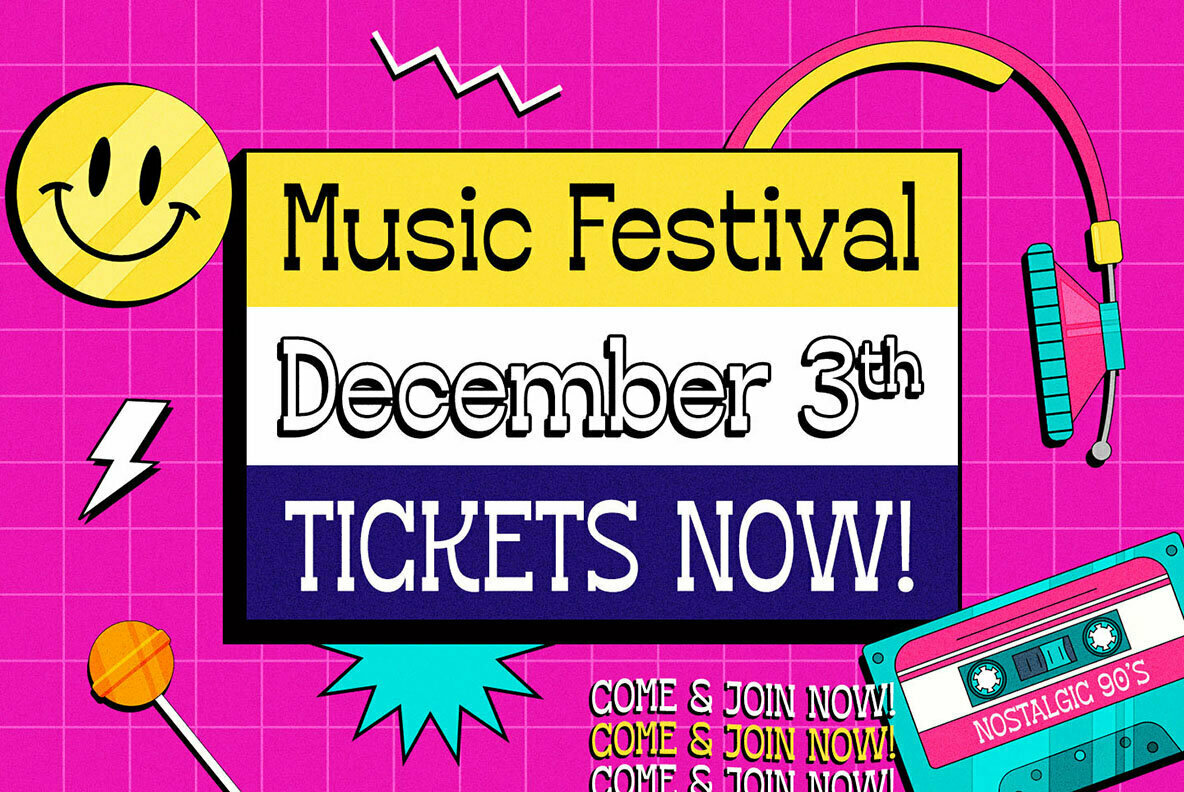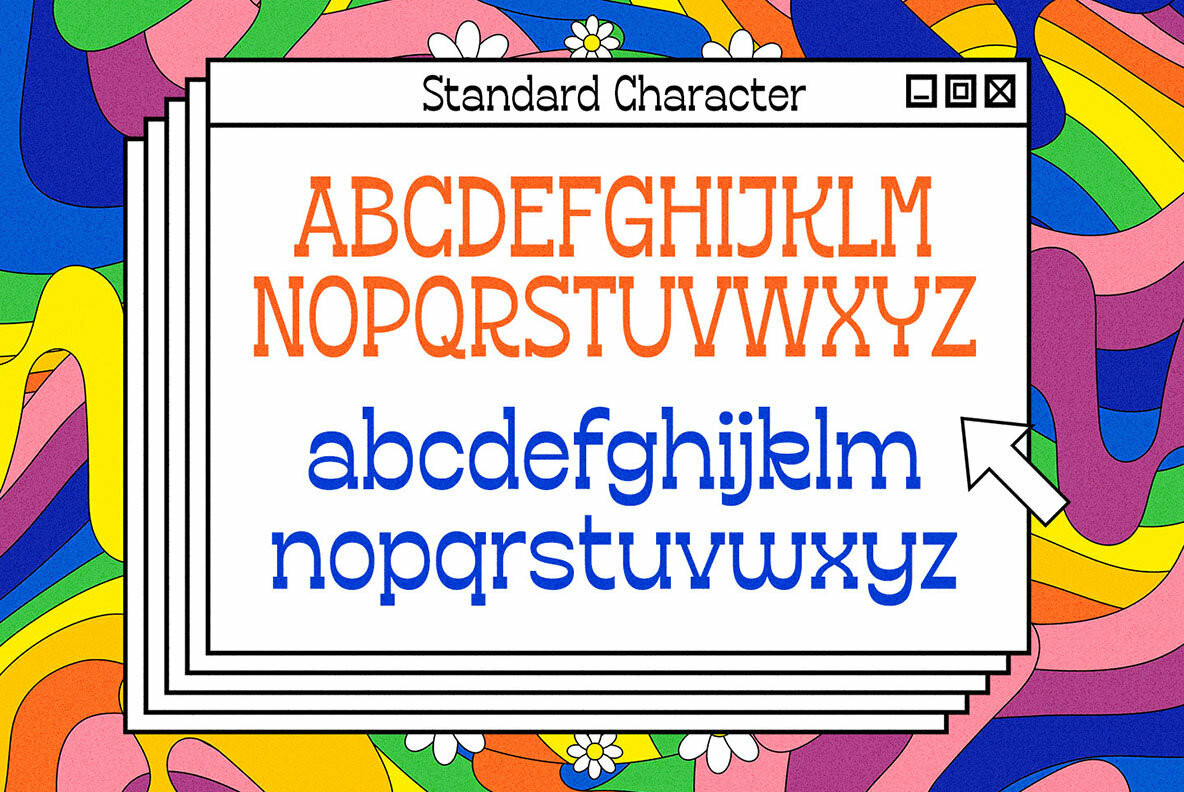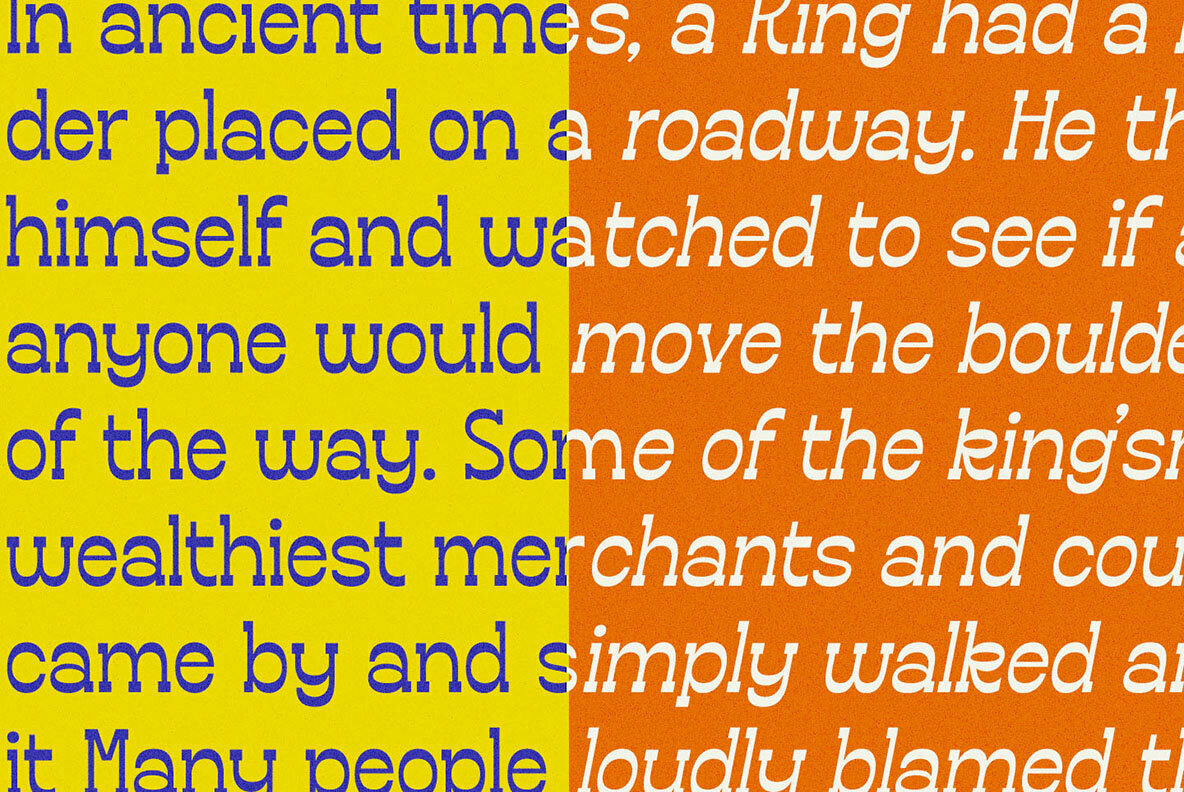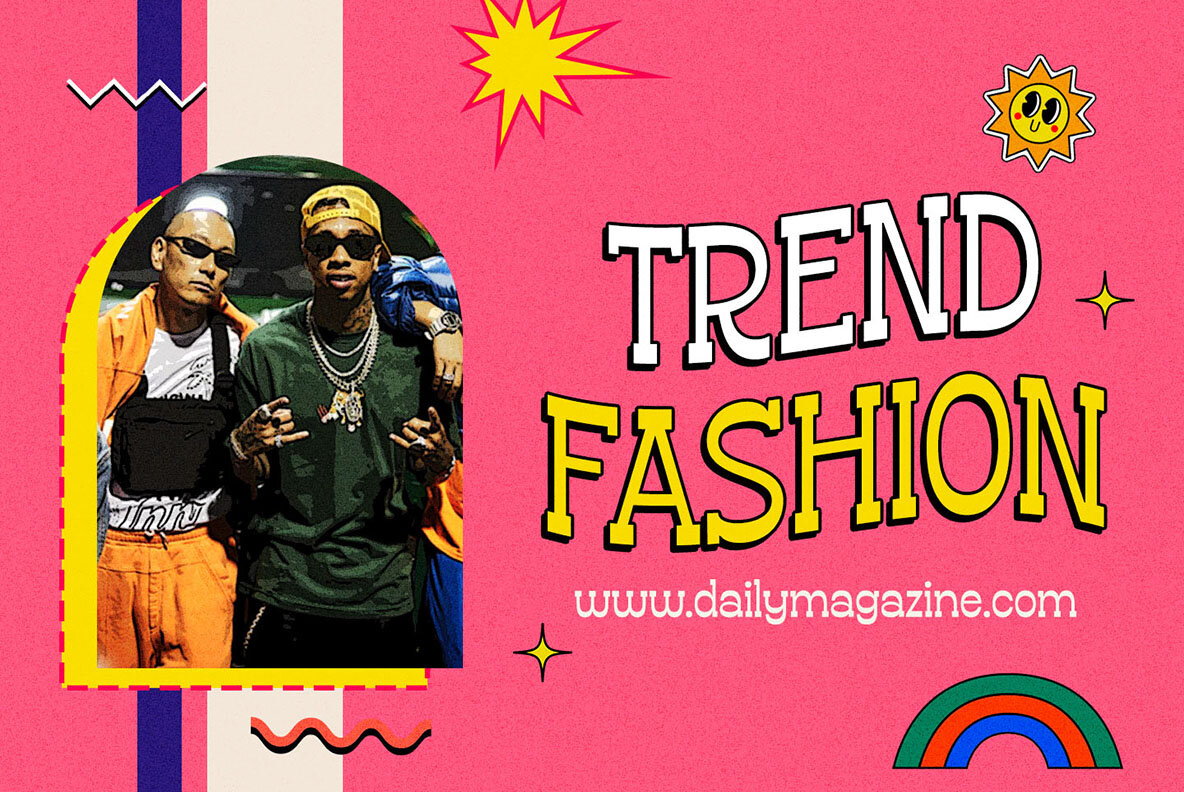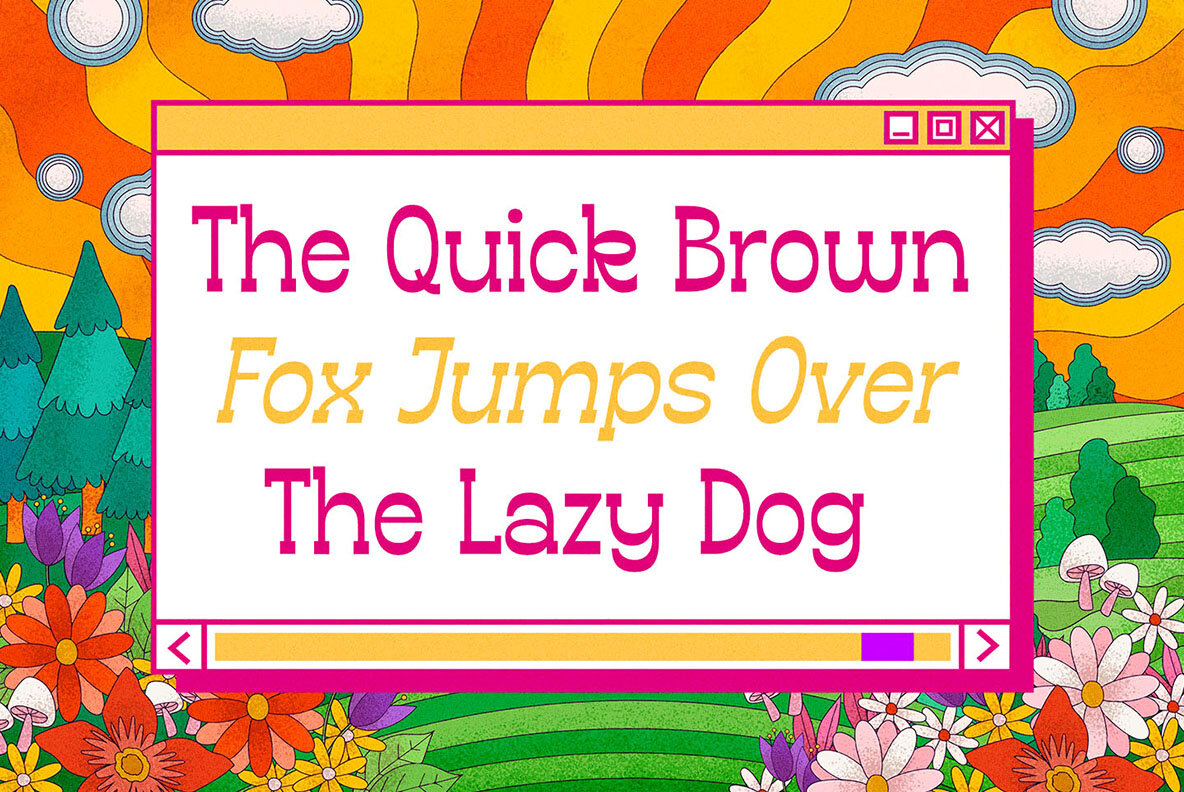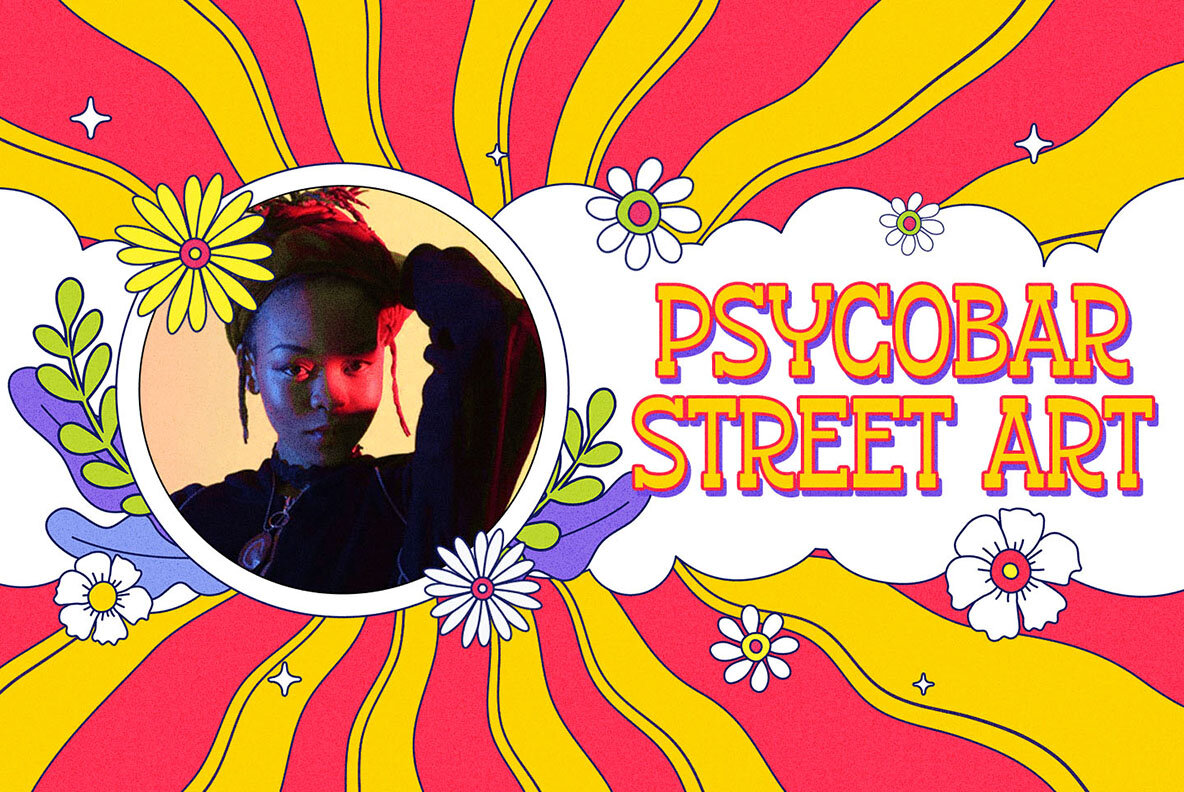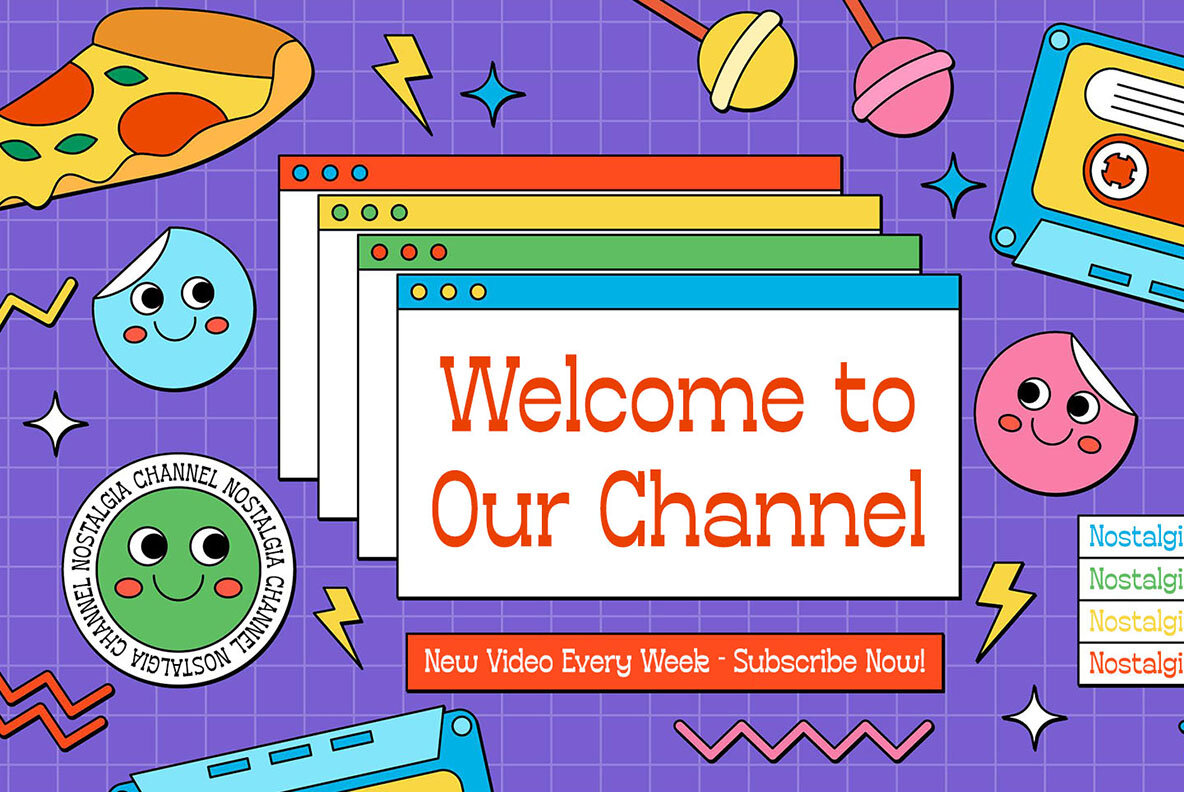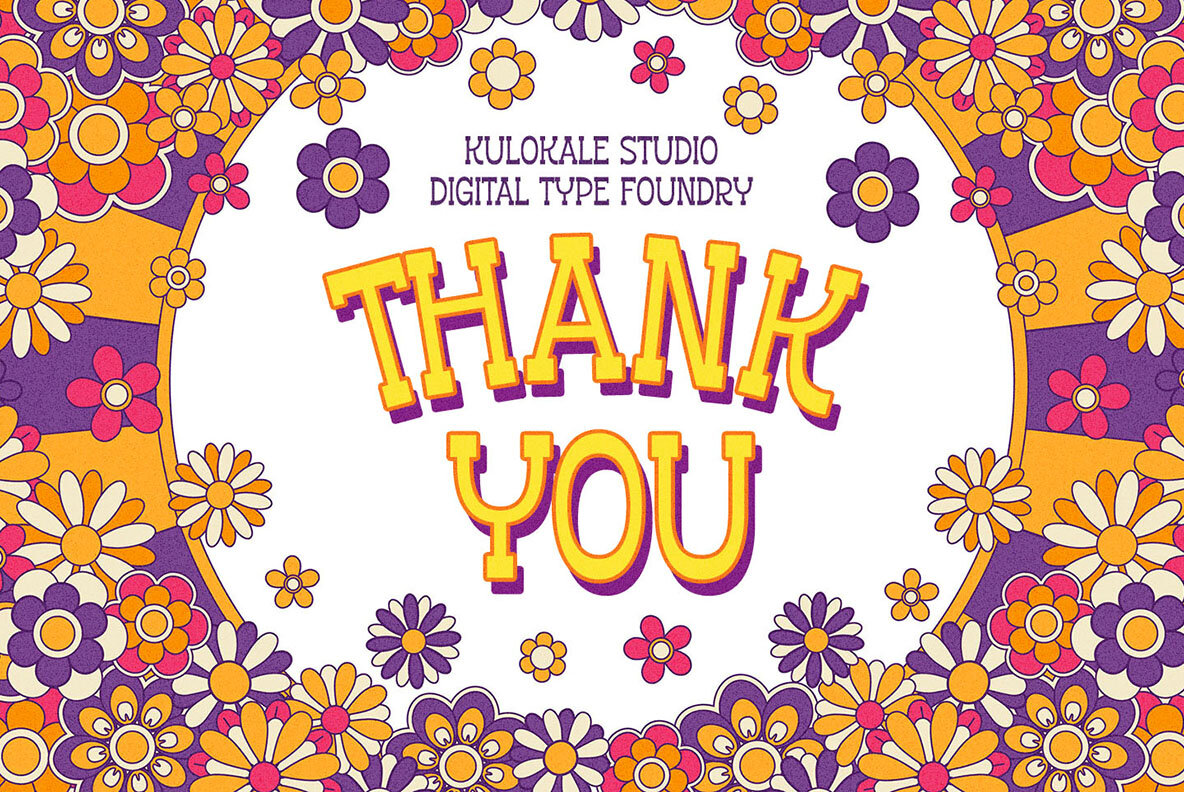
Kafkey Font
Kafkey Regular
Kafkey Oblique
Embrace the distinctive character of Kafkey—an assertive display slab serif font that commands attention in any context. Ideal for applications ranging from advertising and branding to logotypes and packaging, this versatile typeface makes a striking statement in titles, headlines, and editorial design. Features:Kafkey: Bold Display Slab Serif
Versatile Offerings
The Kafkey font brings impact and versatility to your design arsenal, lending its bold strokes to enhance creative expression.